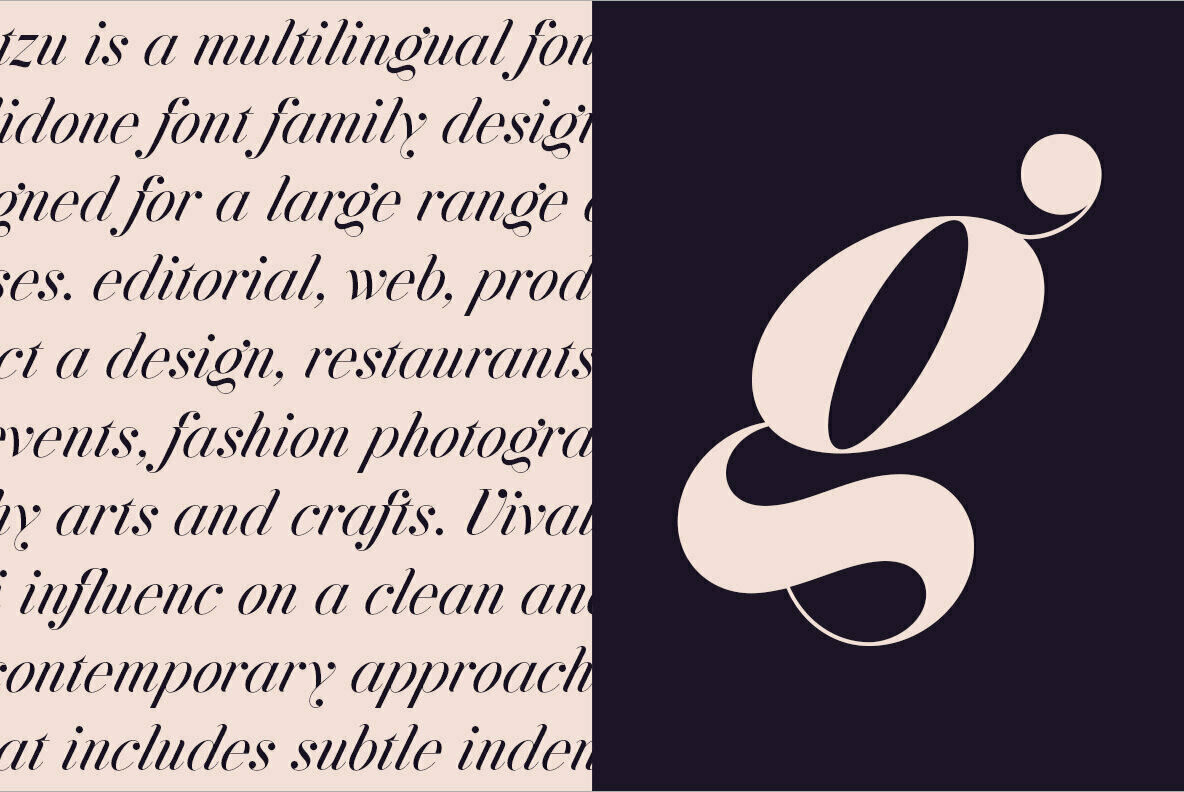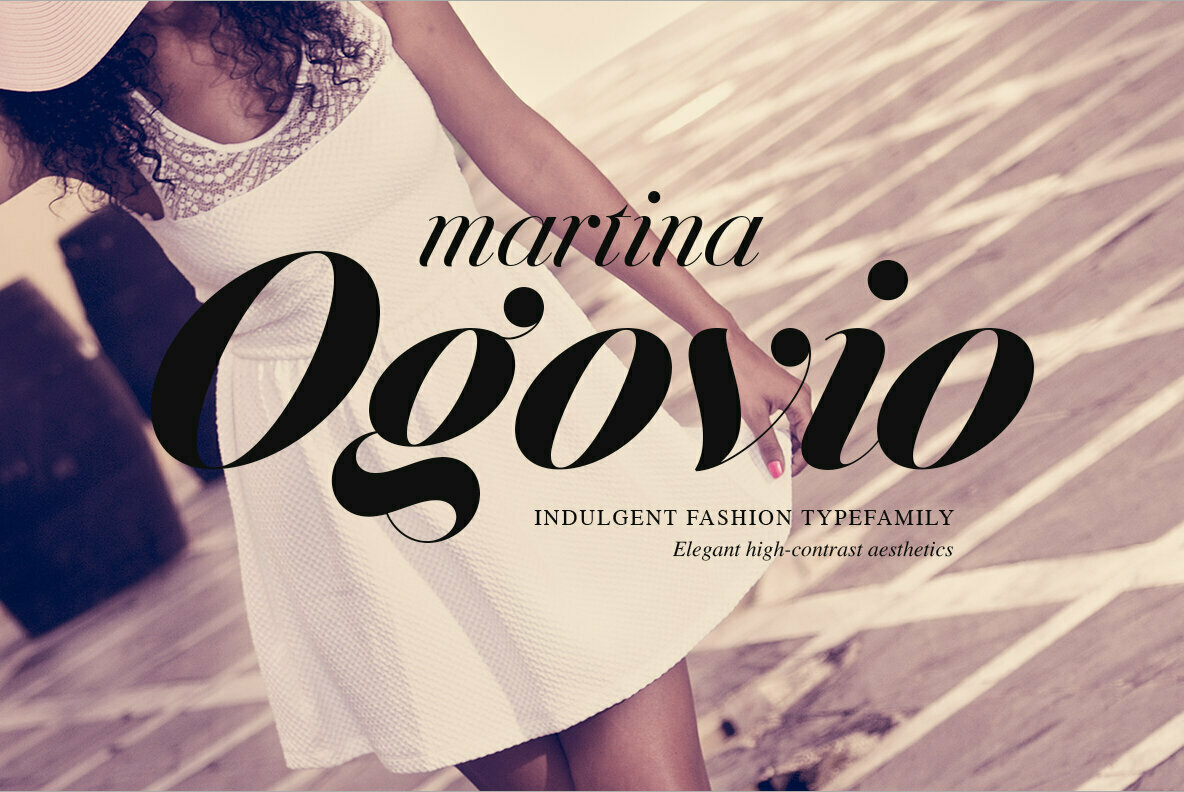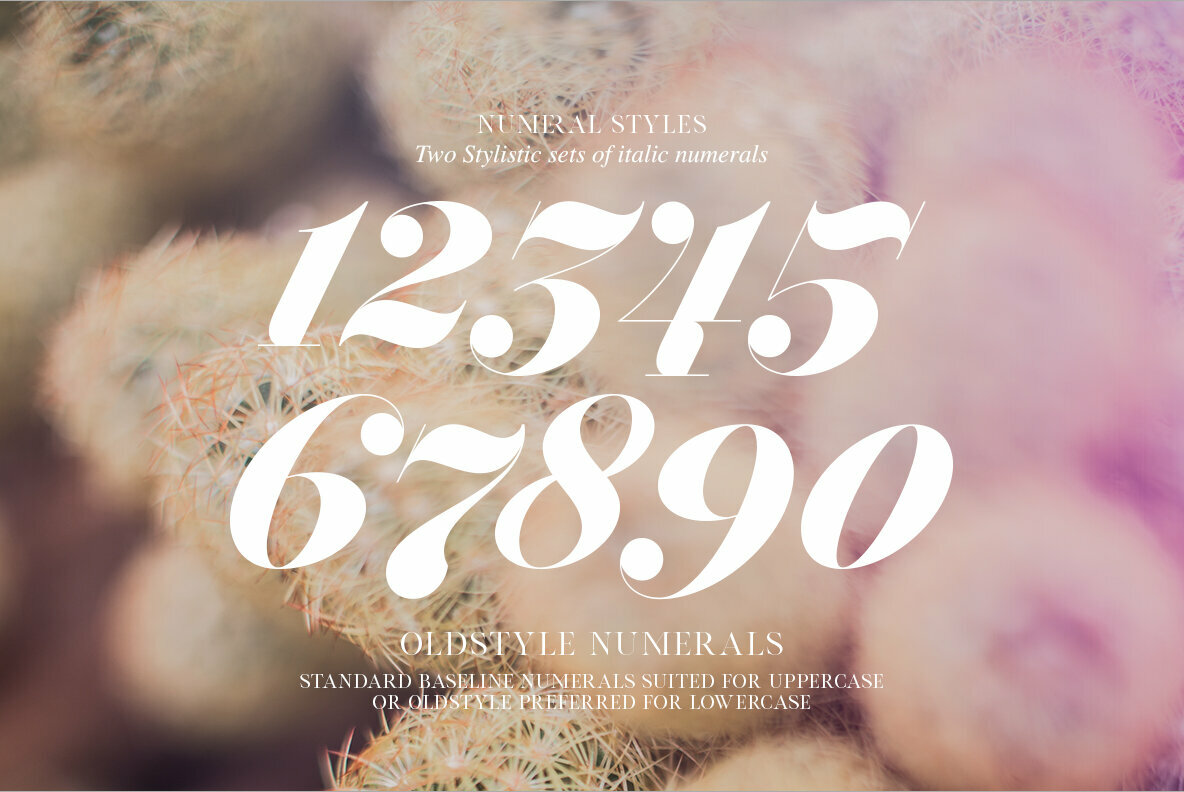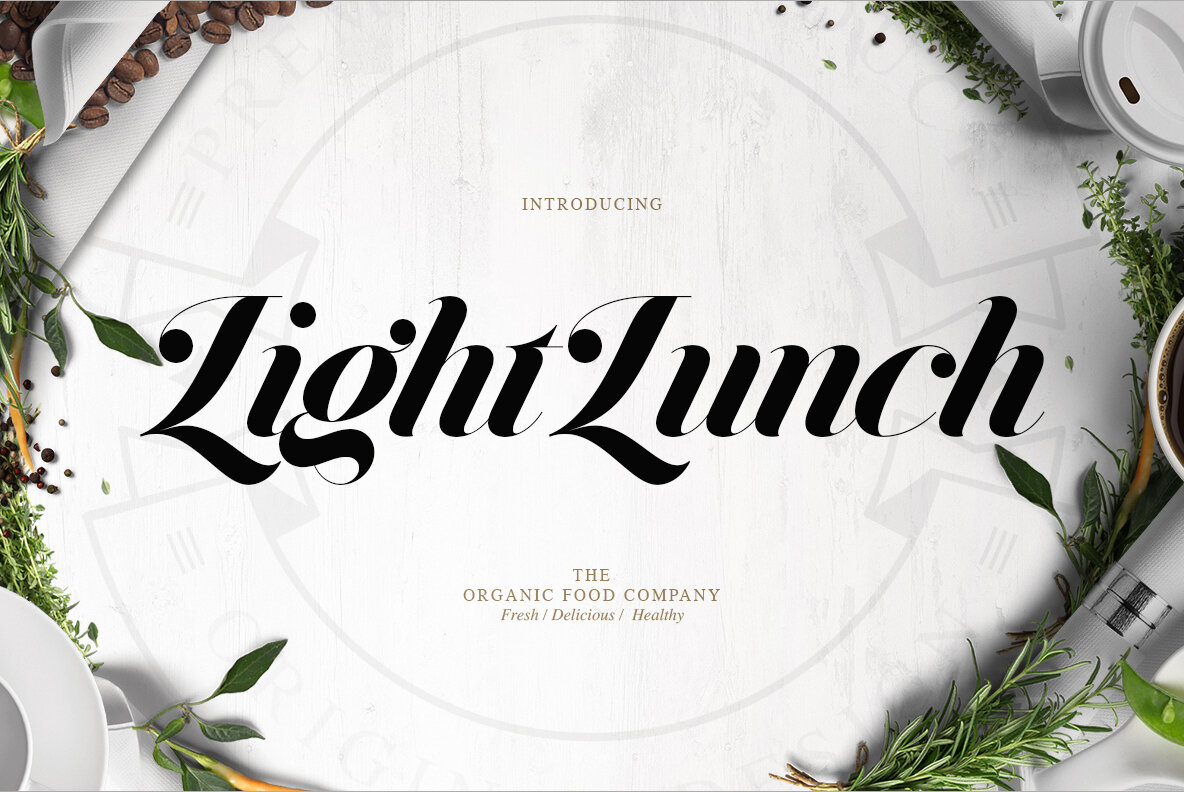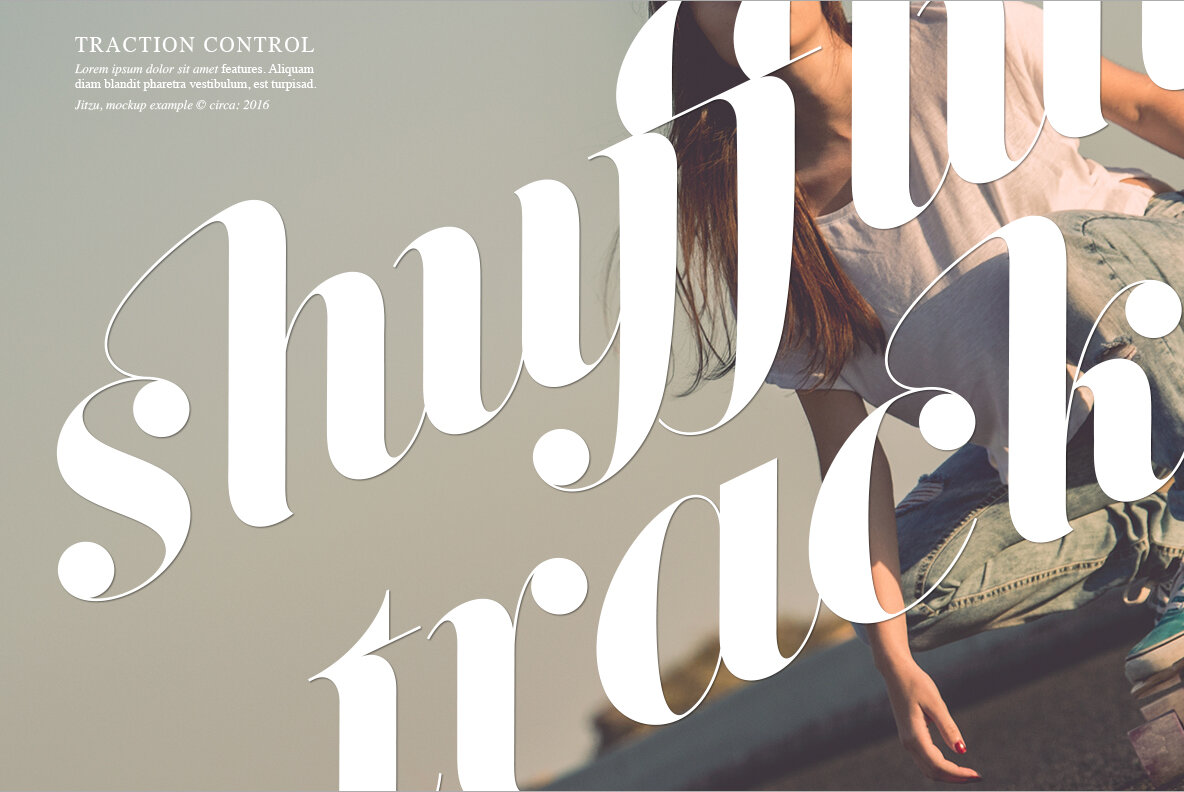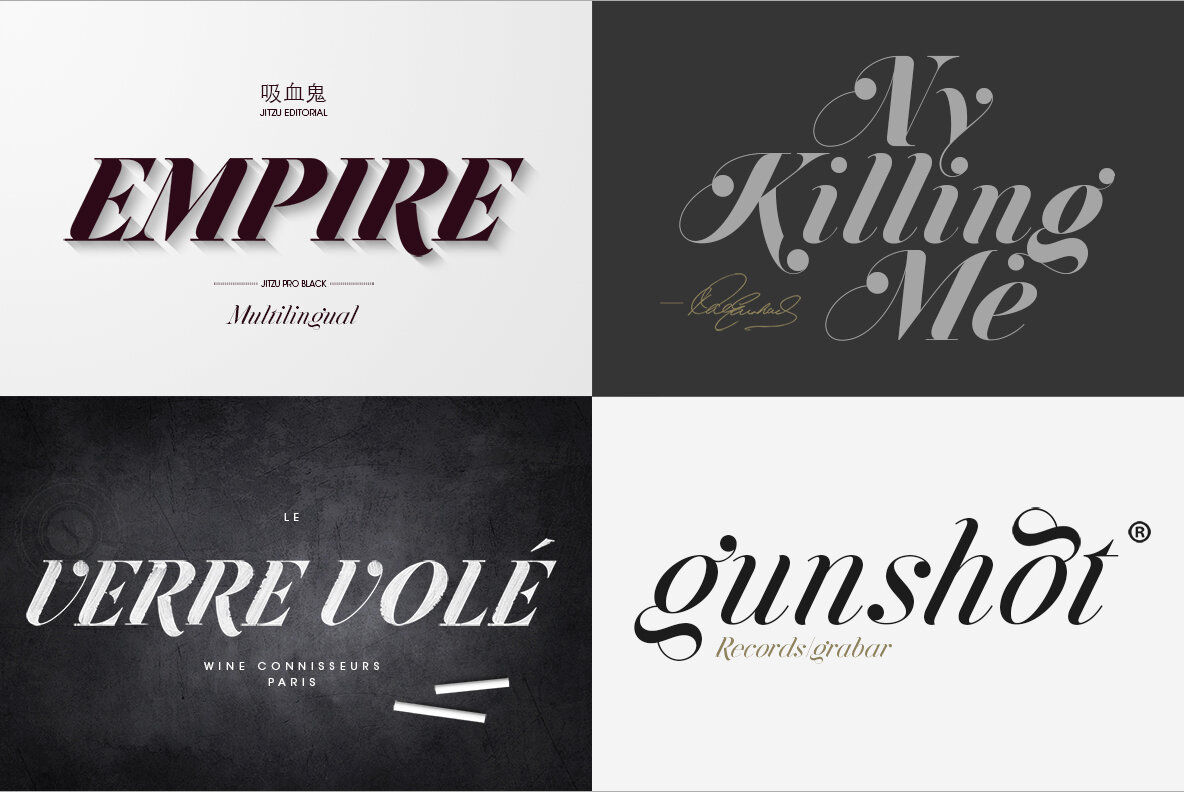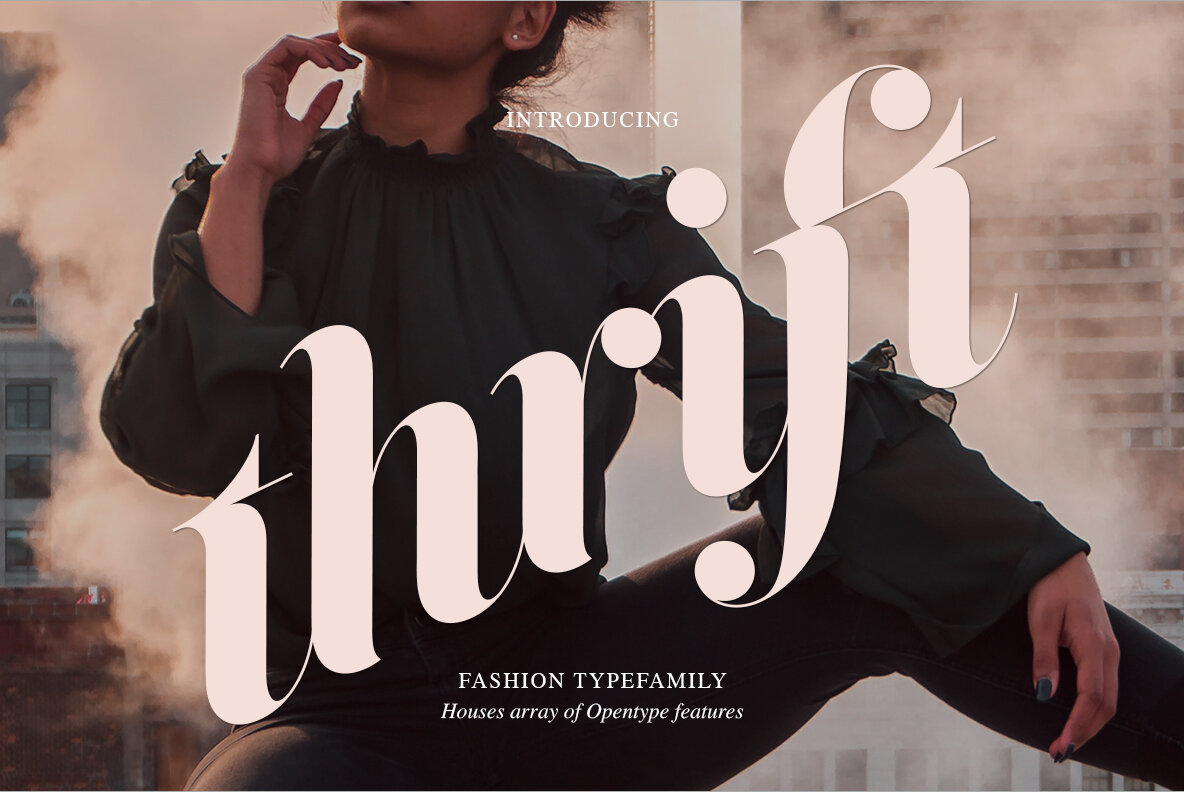
Jitzu Font
Jitzu is an Italic Script Font Family, designed with curvaceous elegance in mind. Focusing on a clean and contemporary approach that includes subtle indentations, parameters and balance remain intact. Whilst Jitzu Swash blends calligraphy and legibility.
Both styles include a Display weight, to achieve maximum aesthetics when being used for headlines or larger text formats. The file includes all 10 weights for both Jitzu Regular & Jitzu Swash.